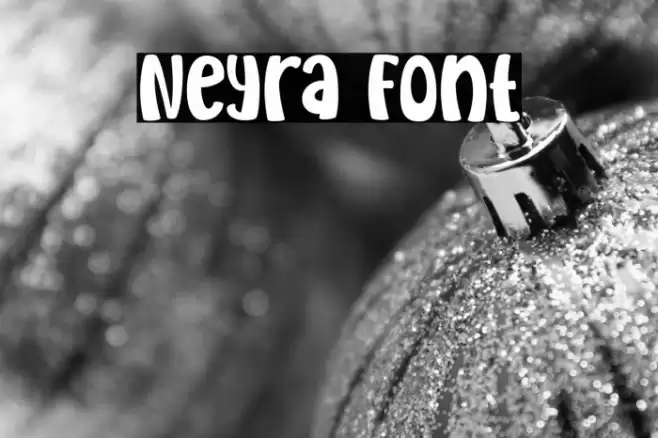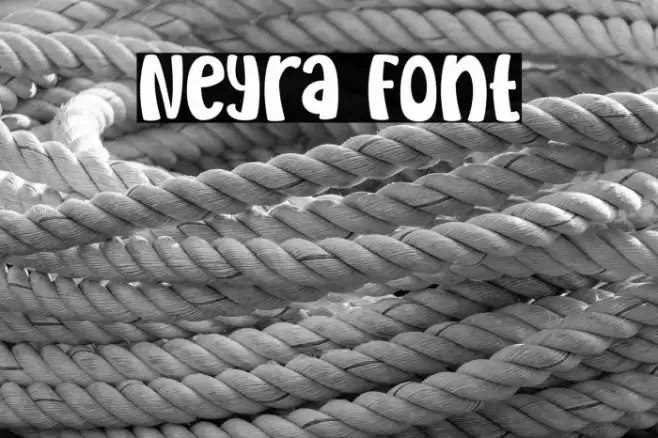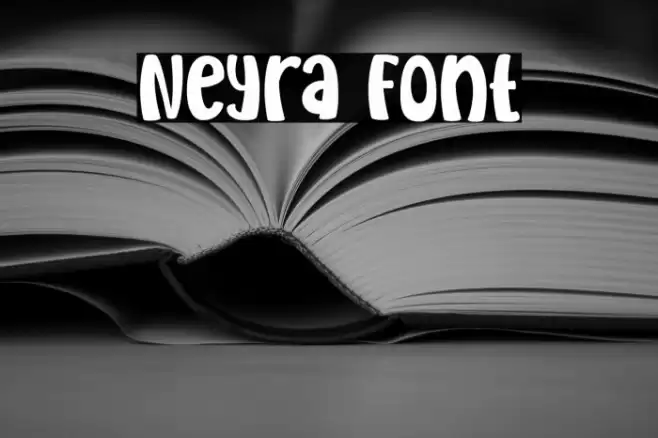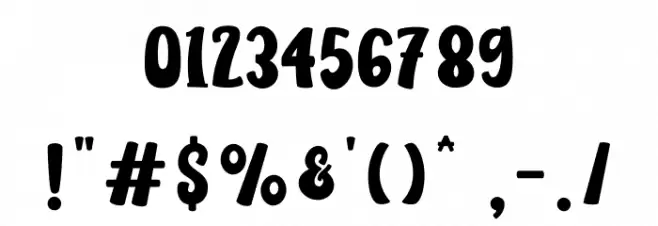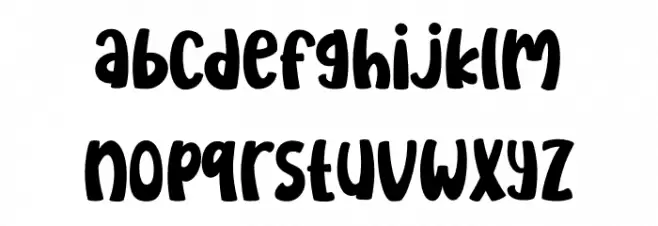
Neyra Font
Neyra Description
This font features a playful and bold style with rounded edges and a slightly irregular baseline, giving it a whimsical and friendly appearance. The characters are thick and well-spaced, making them highly legible while maintaining a fun and informal vibe. The uppercase and lowercase letters are consistent in their playful design, and the numerals and special characters complement the overall style, making it versatile for various creative projects. Its boldness and unique character shapes make it stand out, perfect for designs that require a touch of personality and flair.
A playful, bold font with rounded edges and a whimsical style from Uncategorized fonts.
- Proposed Projects: Ideal for children's books, playful branding, greeting cards, and creative posters.
- Overall Style: Playful
- Use Case: Logos, Headlines, Posters